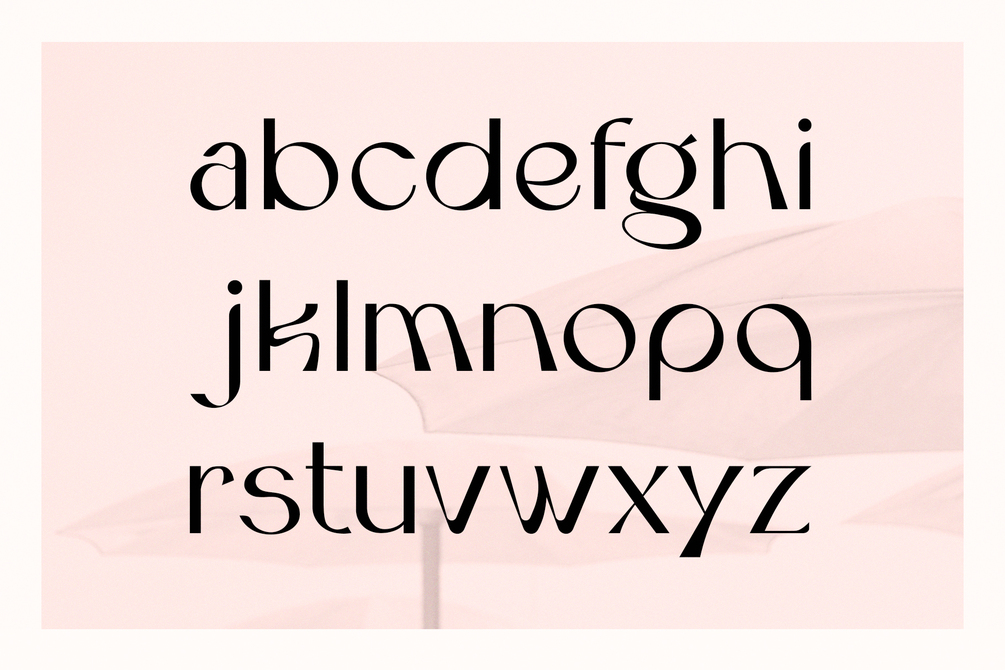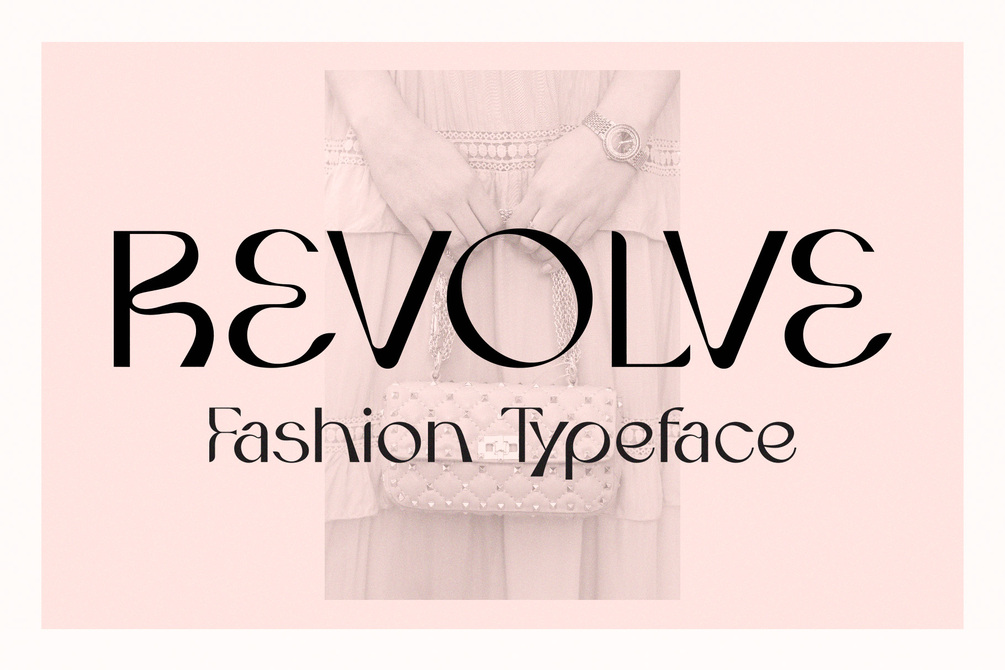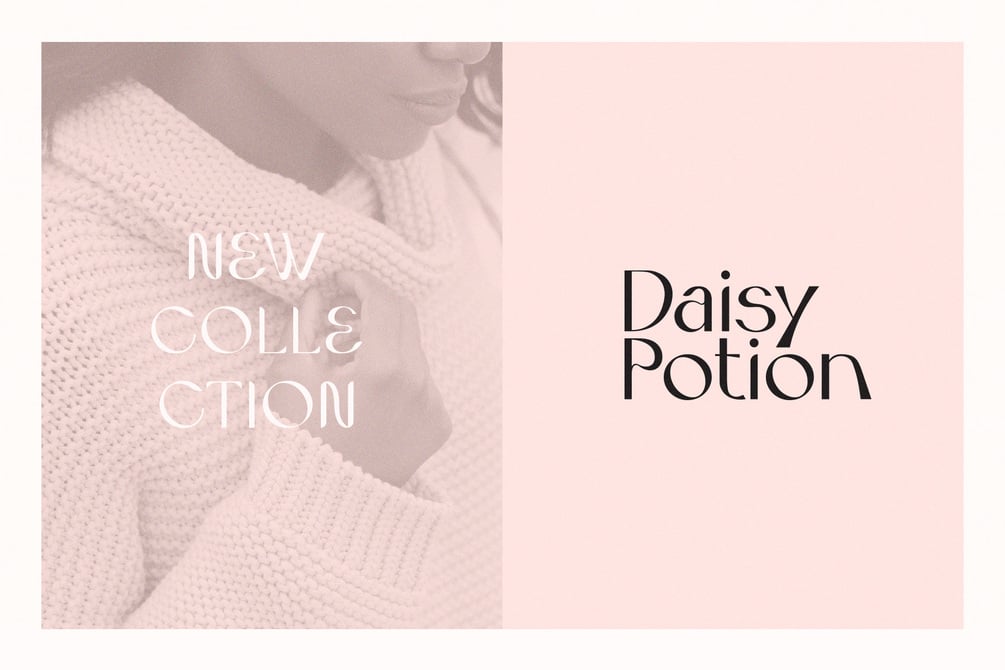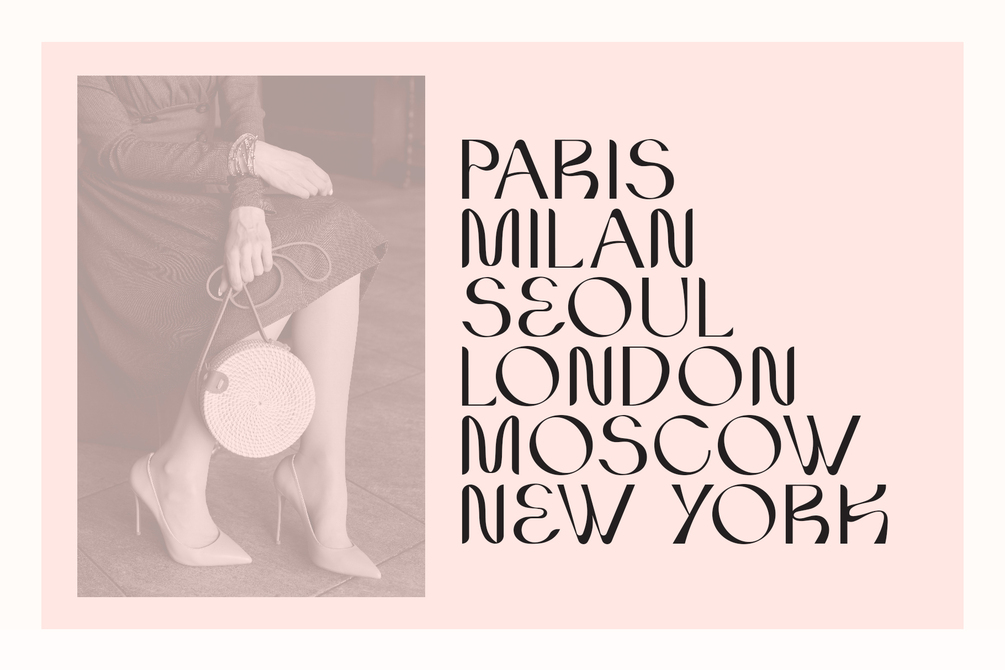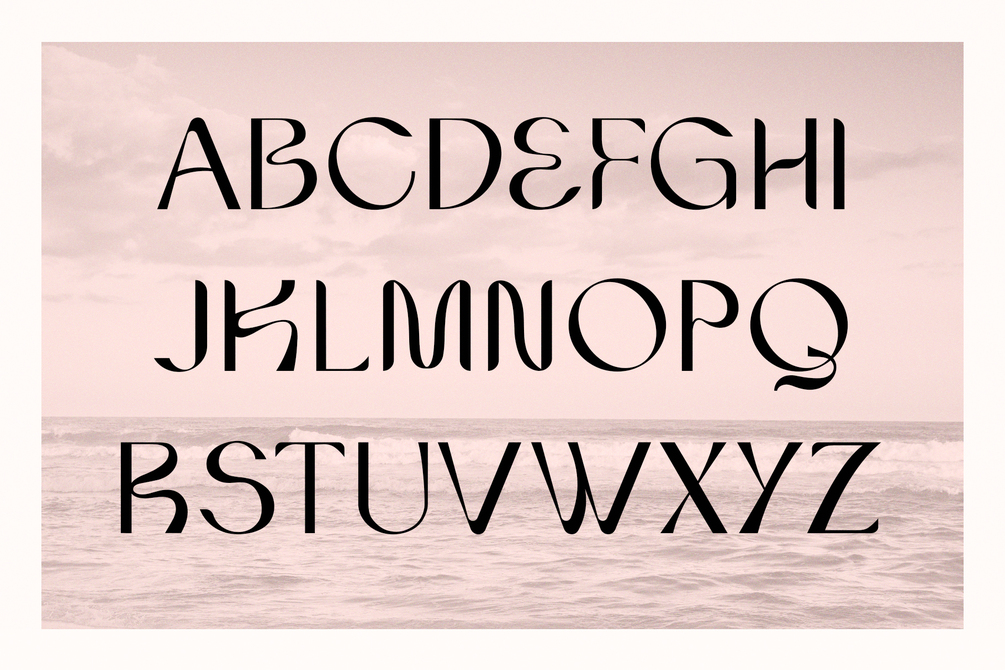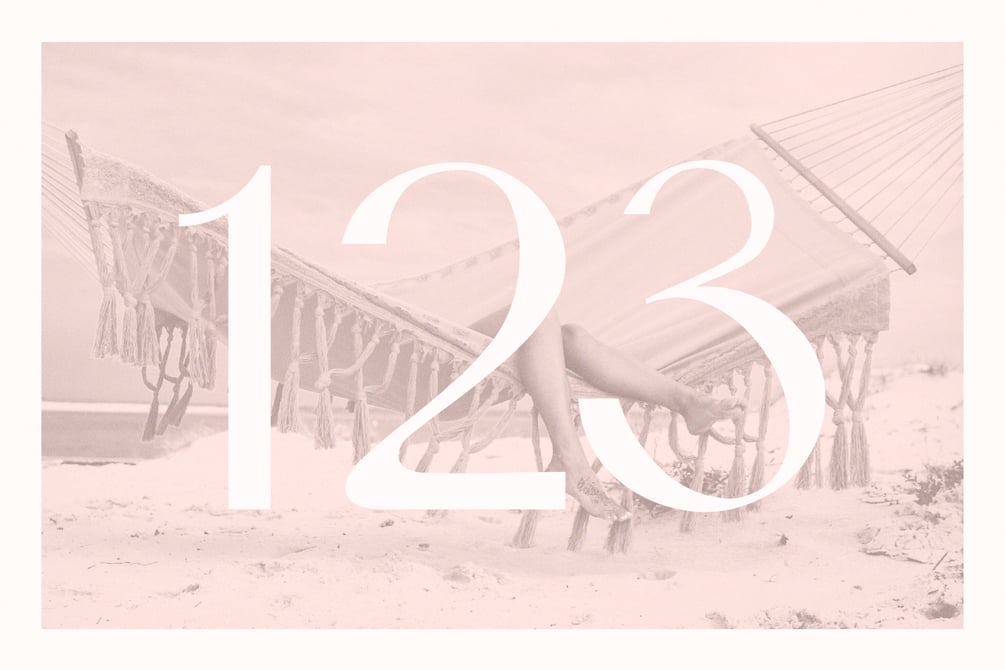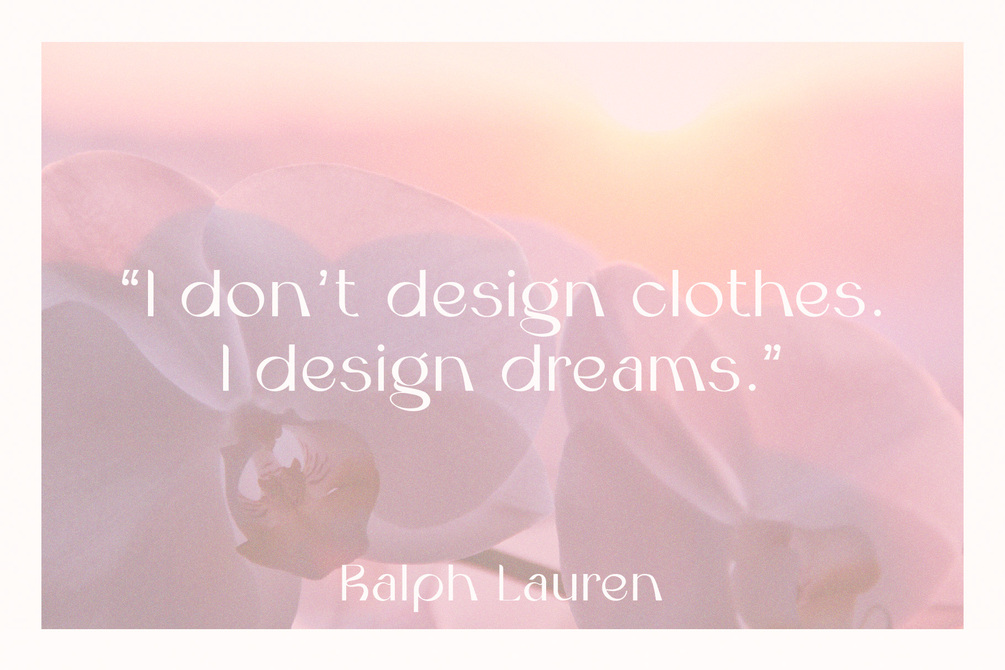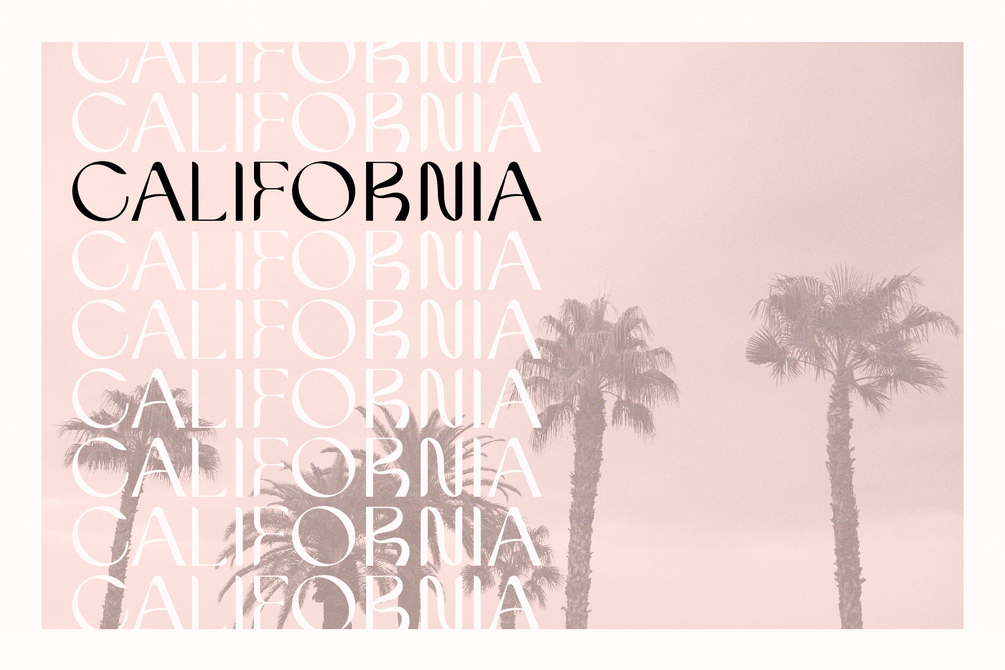
Revolve - Fashion Typeface
Revolve is a beautiful typeface inspired by fashion magazines. It's thick-thin strokes are perfect for elegant designs.
Revolve will serve well for branding, social media, advertising, mood boards, packaging, editorial design, headlines, titles, and more.